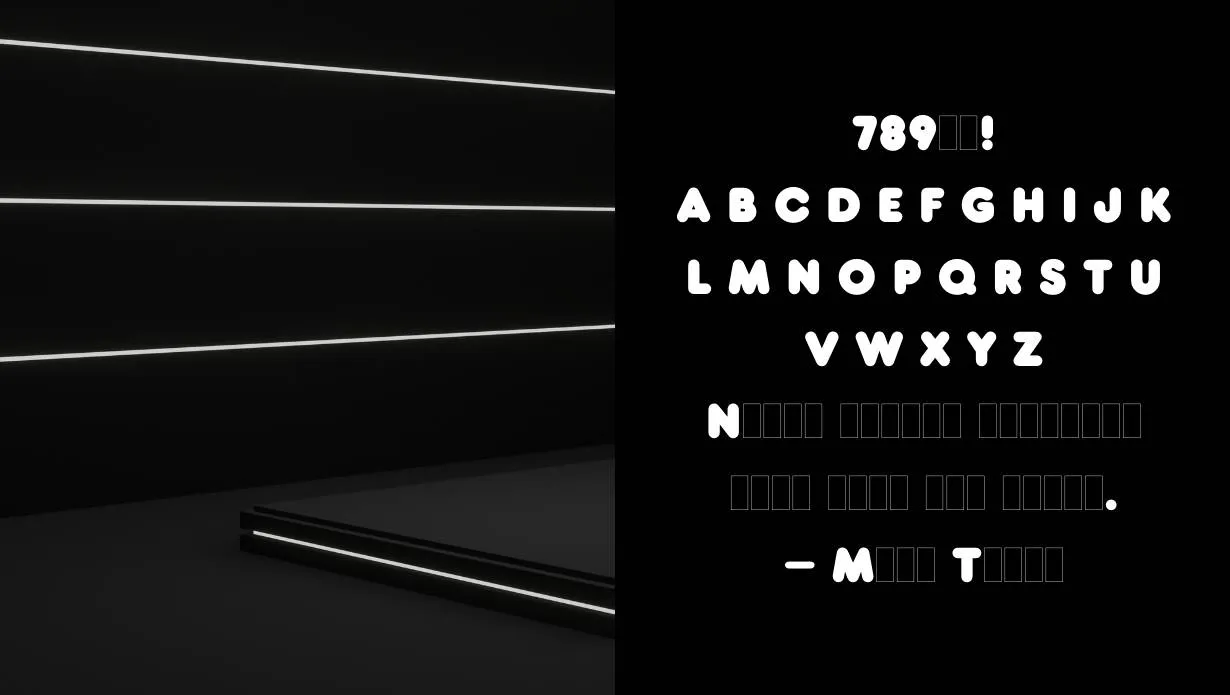
If you’re looking for a fancy font with an amazing and modern design, then Frankfurter Font is a perfect choice for you. This font family is designed by the English typeface designer Alan Carr. It was released on the year of 1978.
| Name | Frankfurter Font |
| Designer | Alan Carr |
This is available in both regular and italic styles and comes with a range of alternate characters and ligatures.